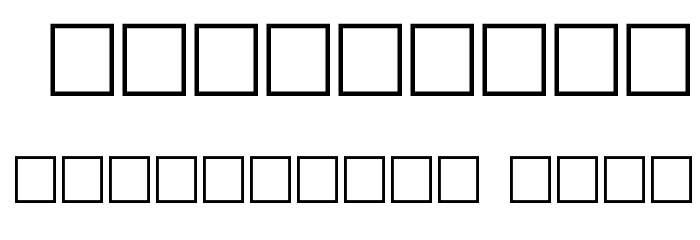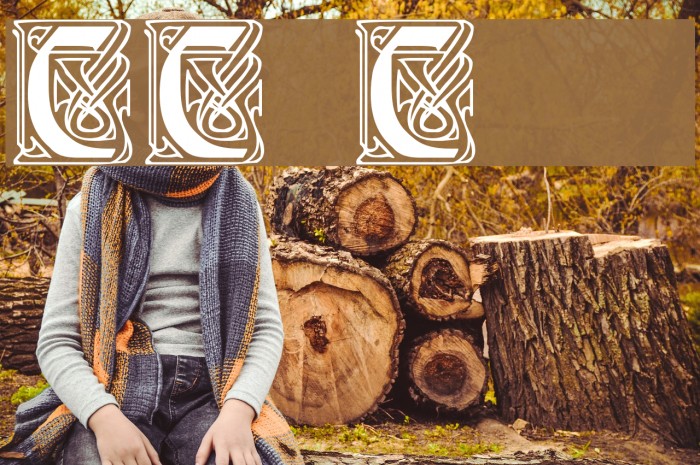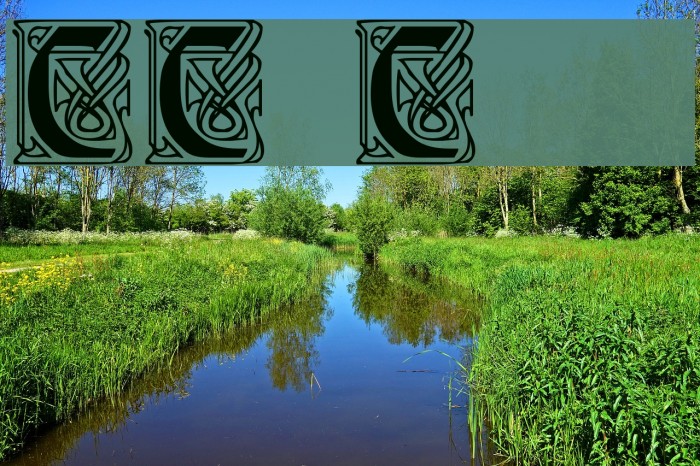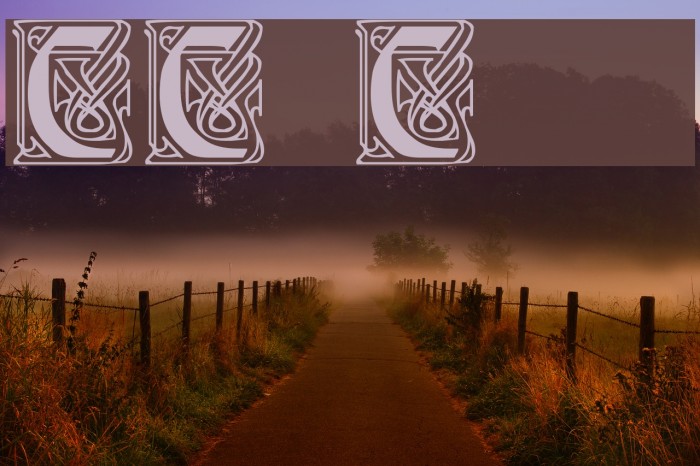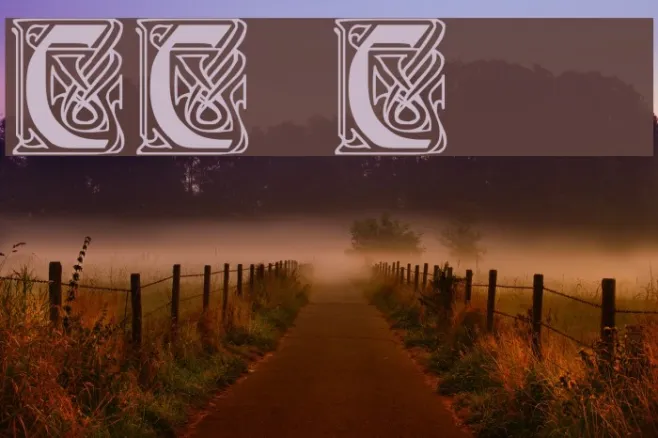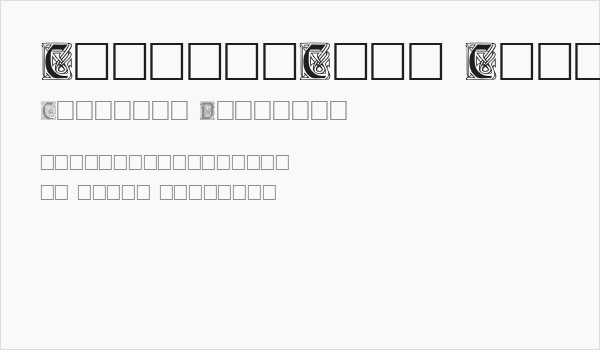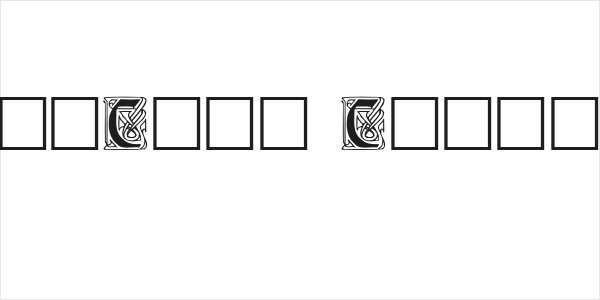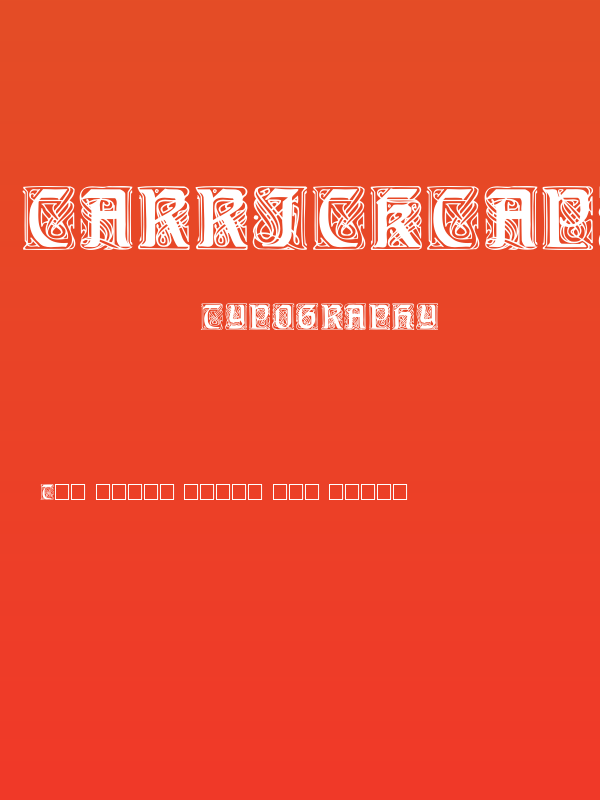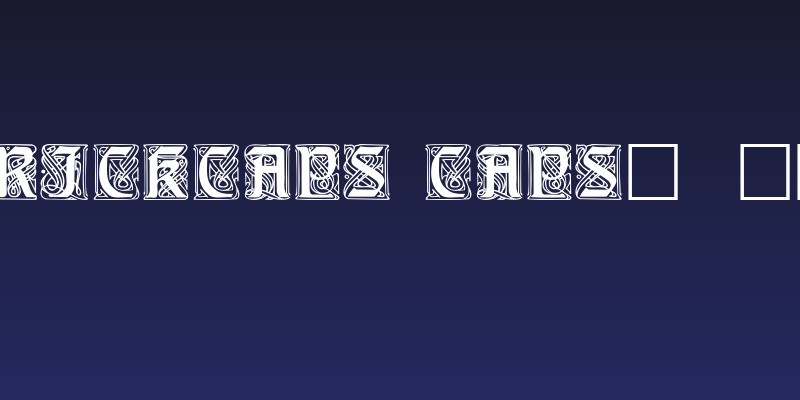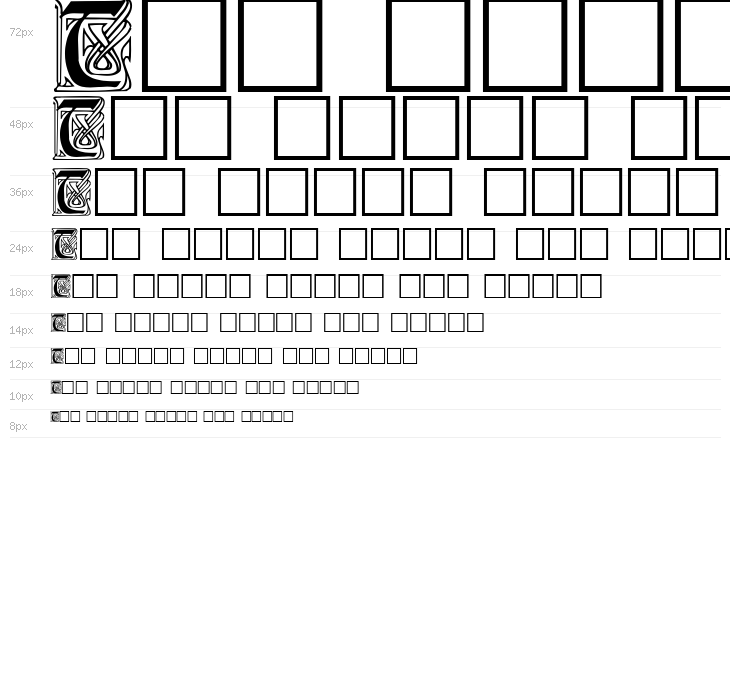
CarrickCaps Caps:001.001 Font
CarrickCaps Caps:001.001 Description
This font features an intricate and decorative style, characterized by elaborate swirls and patterns within each letterform. The uppercase letters are bold and ornate, with a strong presence that captures attention. The design is reminiscent of Celtic or medieval art, with a modern twist that makes it suitable for contemporary use. The detailed embellishments within each letter create a sense of movement and complexity, making it ideal for projects that require a touch of elegance and sophistication.